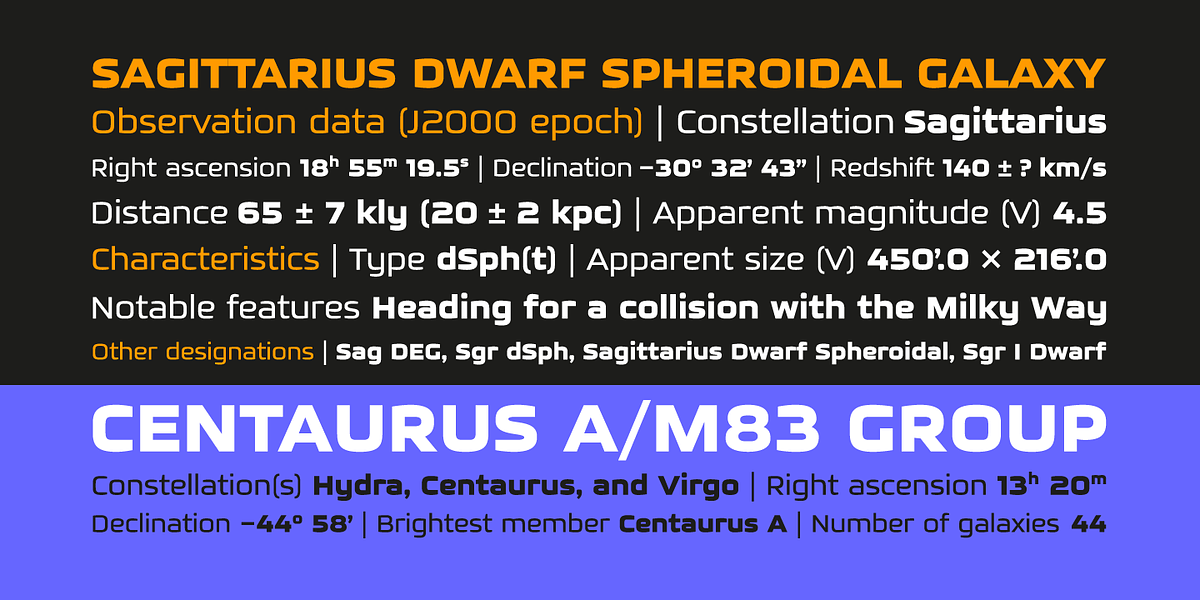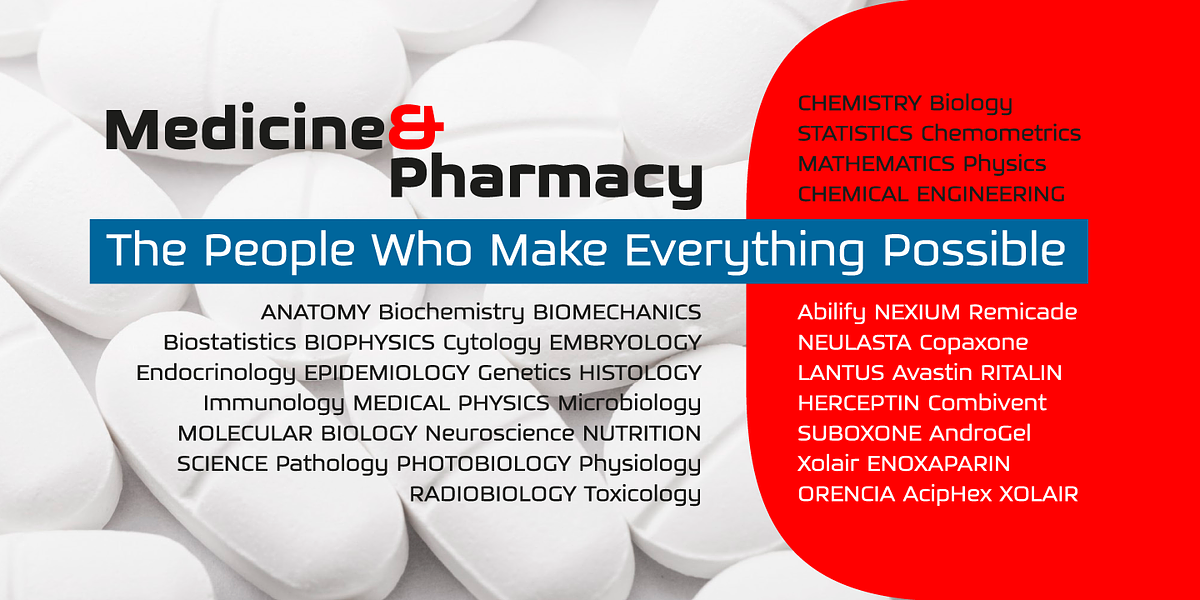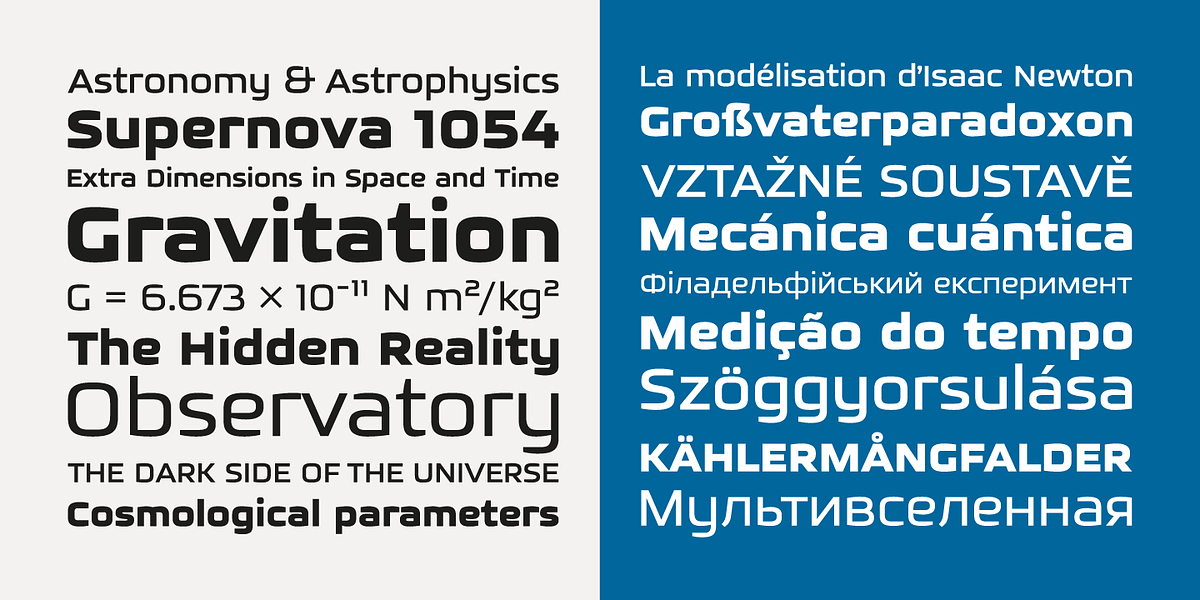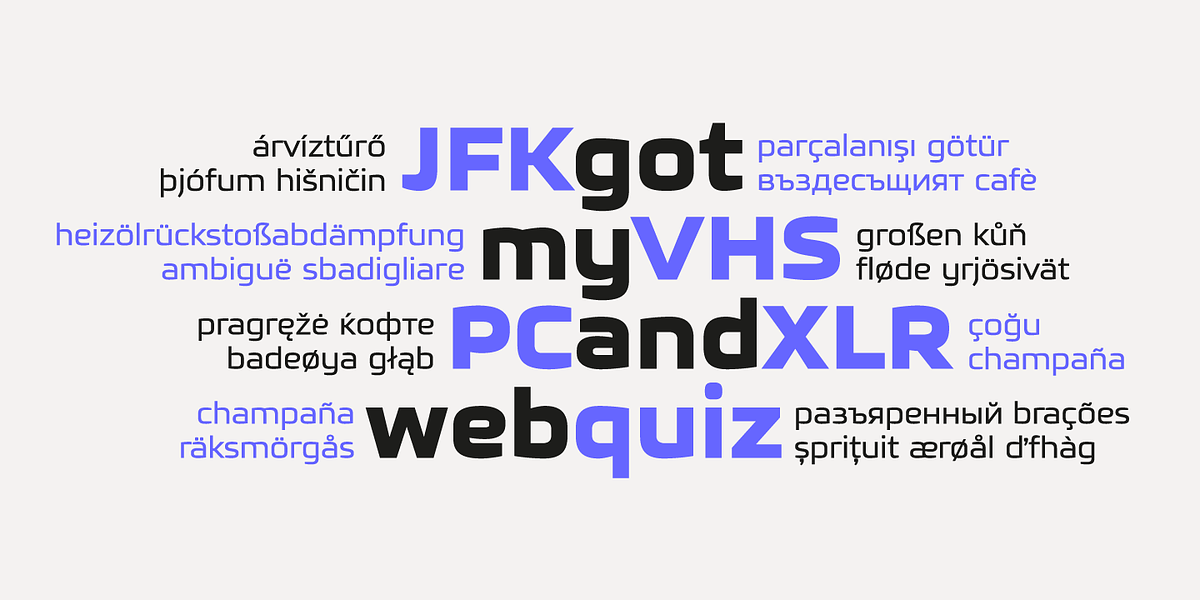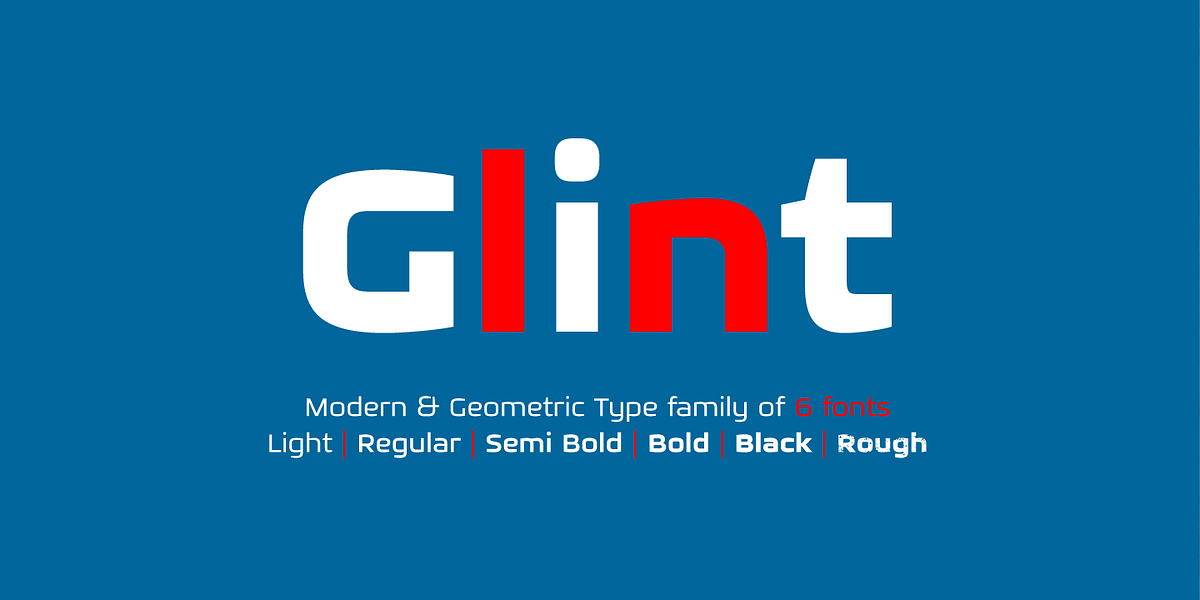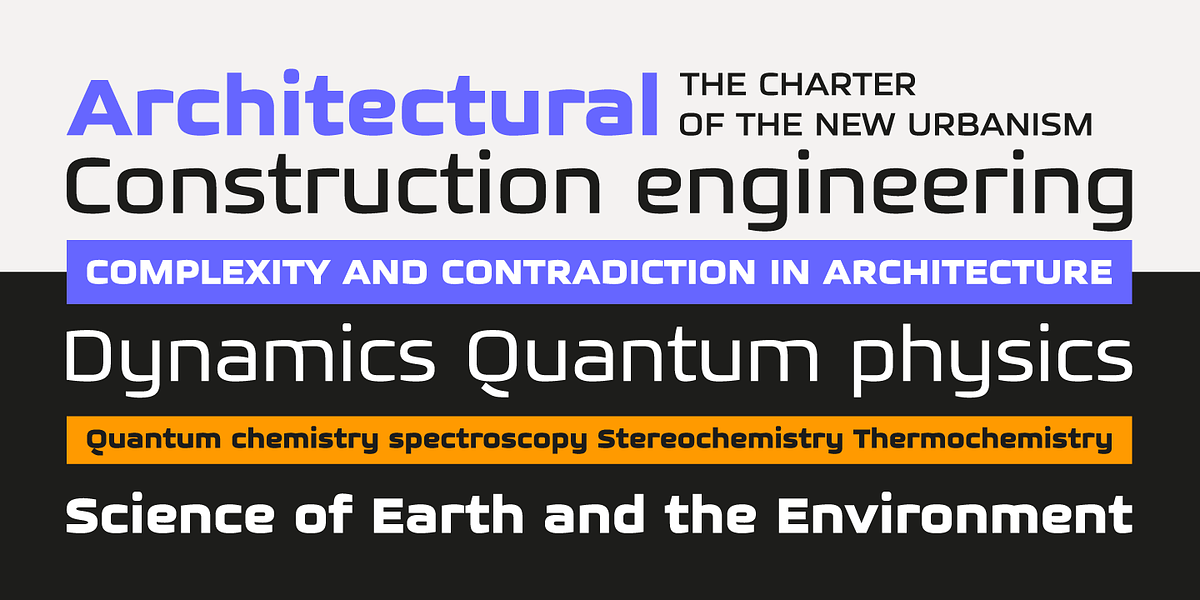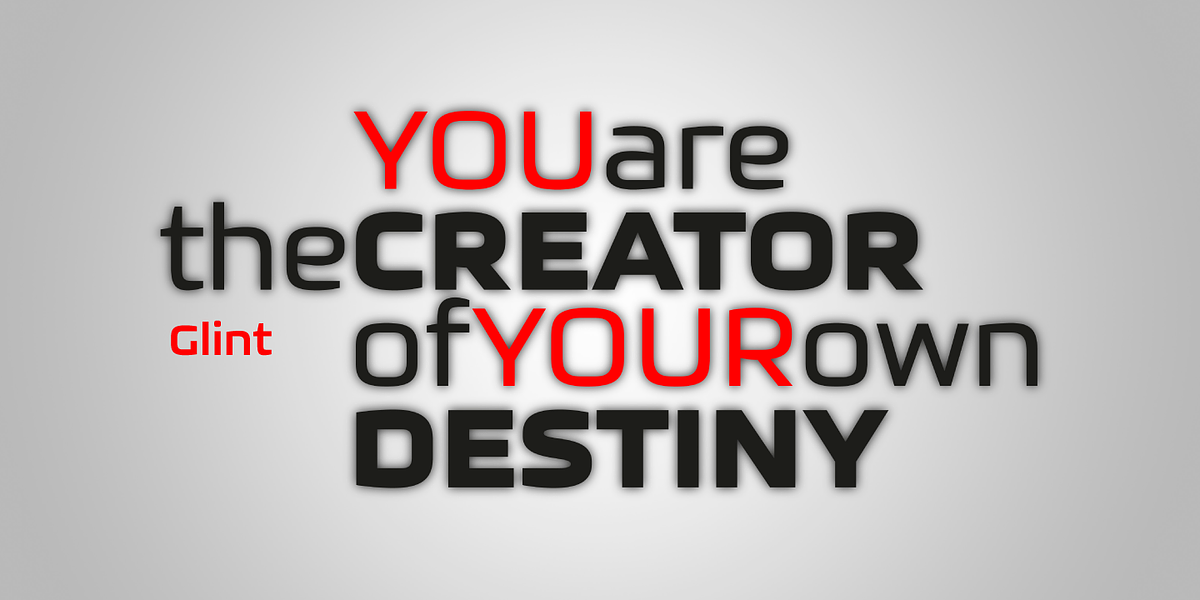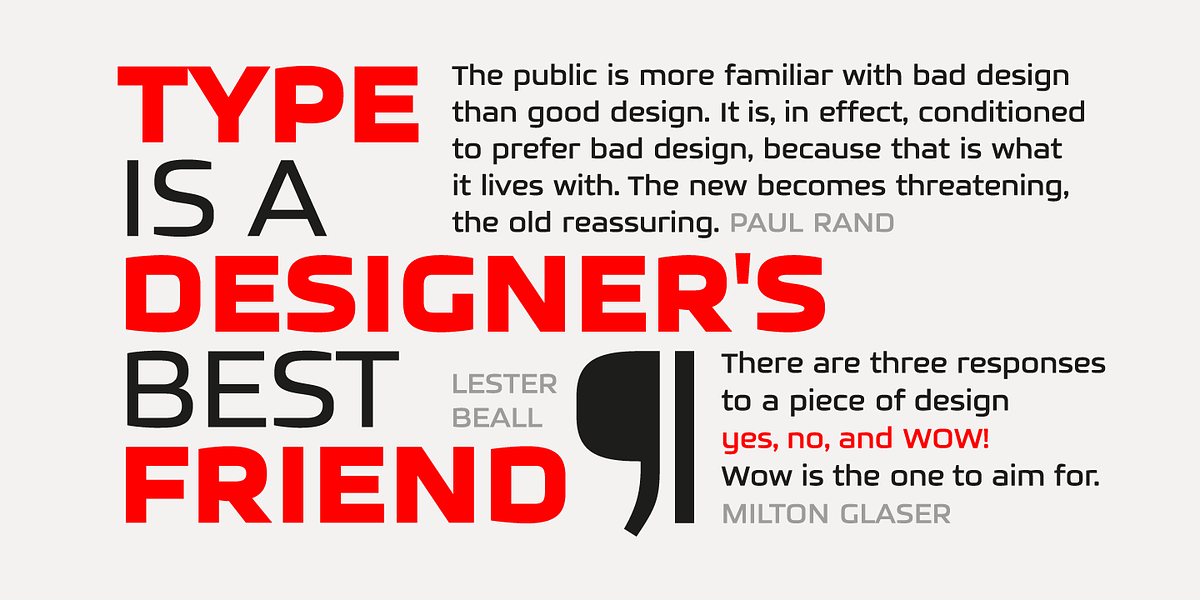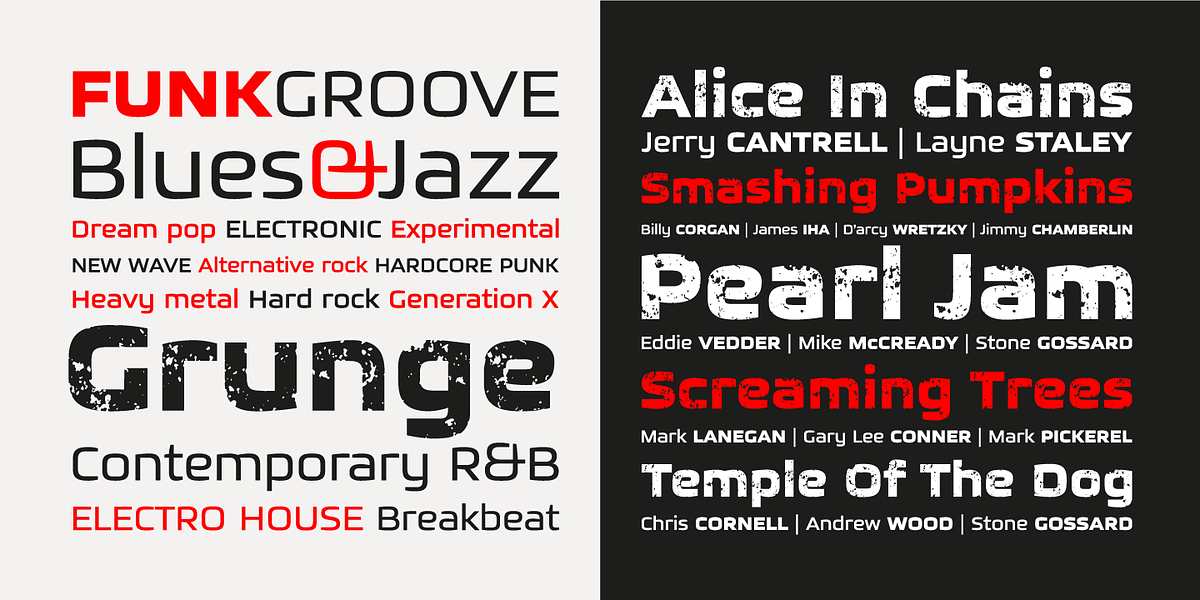
Glint
Glint is a geometric sans-serif font family characterized by its square-shaped glyphs and a refined, modern aesthetic. It's available in five weights, from Light to Black, making it versatile for various design applications. The font supports both Cyrillic and Latin characters, expanding its usability across different languages.